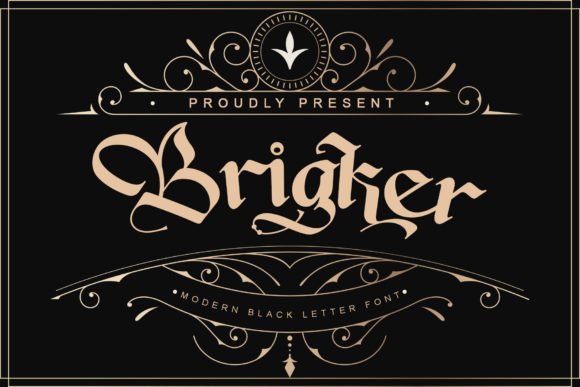
Behold Brigker, a blackletter font that exudes audacity, elegance, and a touch of mystique. Its commanding presence and uniquely crafted letters demand attention, making it the perfect choice for those seeking a font that stands out.
Step into a realm of creativity where Brigker's bold strokes and captivating curves take center stage. Unleash your imagination and craft designs that resonate with power and charisma. Whether you're a seasoned designer or just starting, Brigker is your ally in creating masterpieces that leave an indelible mark.
With Brigker, you'll discover a font that effortlessly blends the classic and the contemporary. Its blackletter roots evoke a sense of timeless sophistication, while its modern interpretation brings a fresh and edgy vibe to your designs. From branding projects that demand authority to invitations that exude elegance, Brigker is the versatile font that adapts seamlessly to your creative vision.
Embrace the allure of Brigker's captivating details. Each letter is meticulously designed with intricate flourishes and graceful curves, ensuring that your designs radiate an air of refinement and luxury. Let Brigker elevate your creations, turning them into visual symphonies that captivate and inspire.
Don't settle for ordinary fonts that blend into the background. Choose Brigker, the font that commands attention and sparks conversations. Its bold personality and undeniable charm will transform your designs into unforgettable experiences.